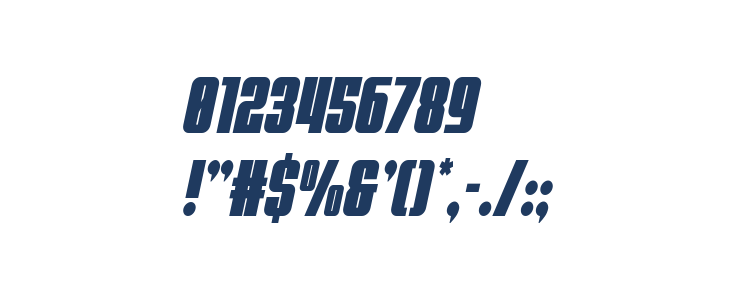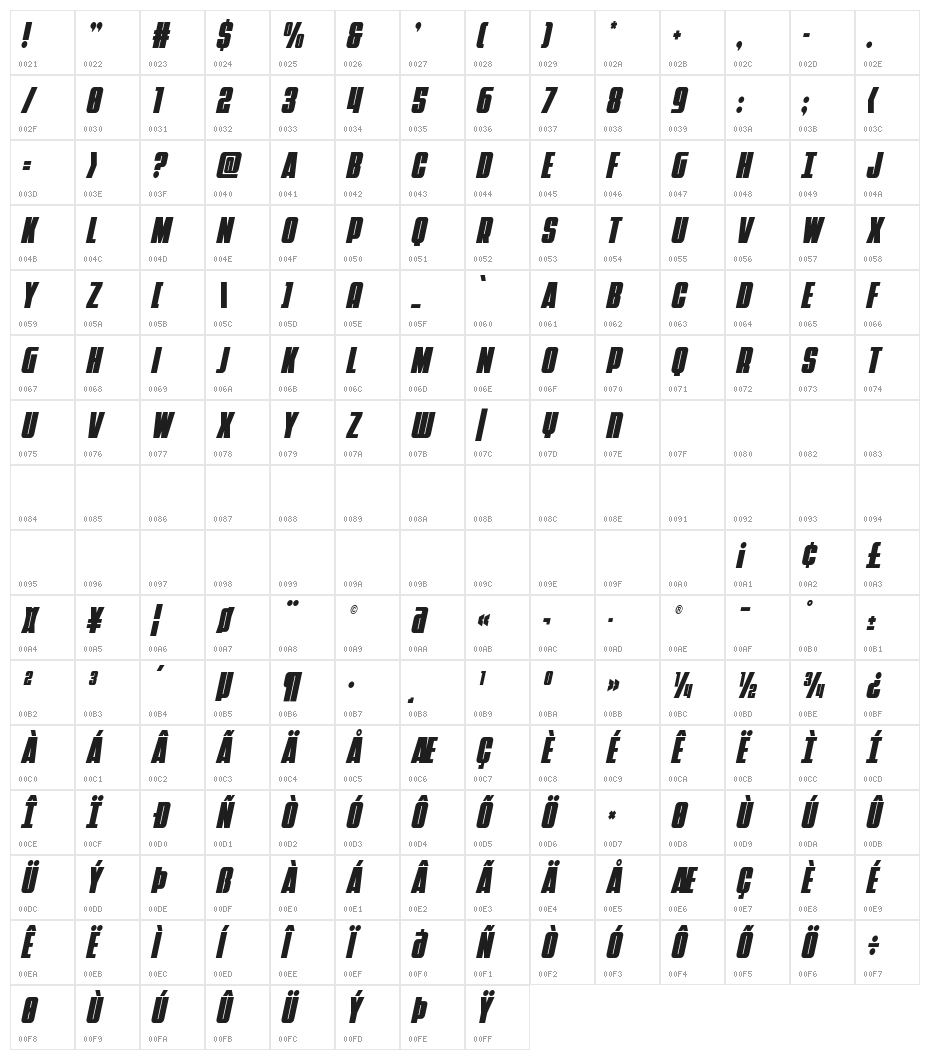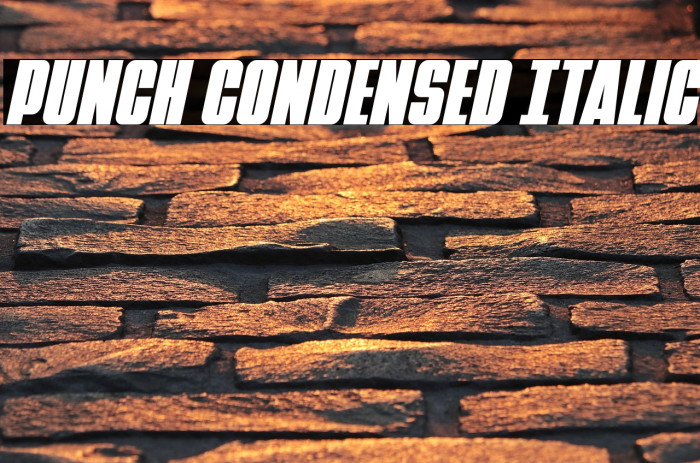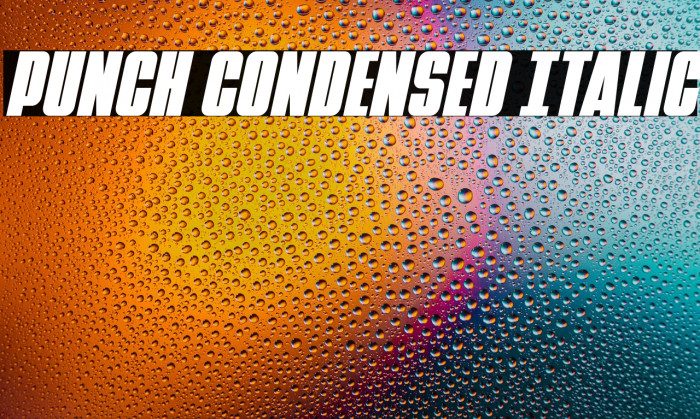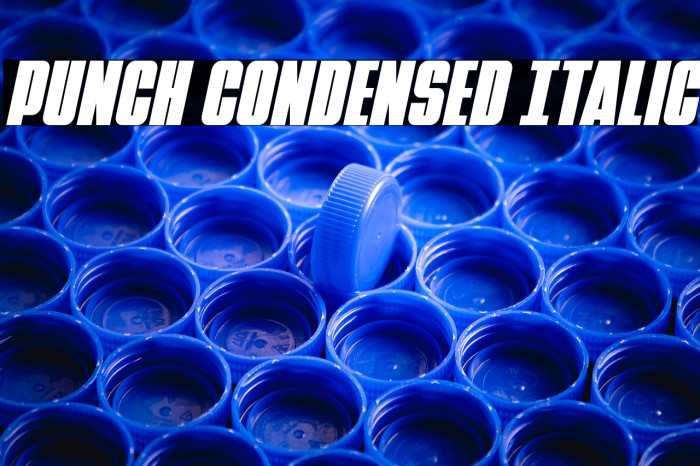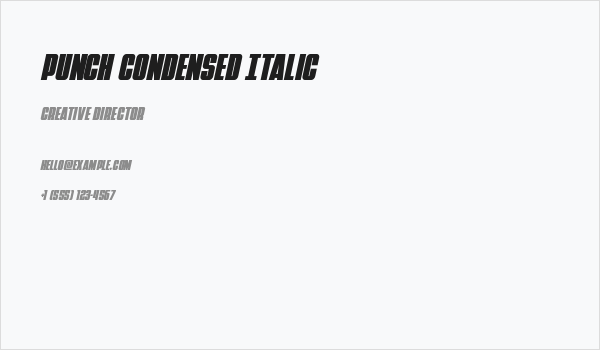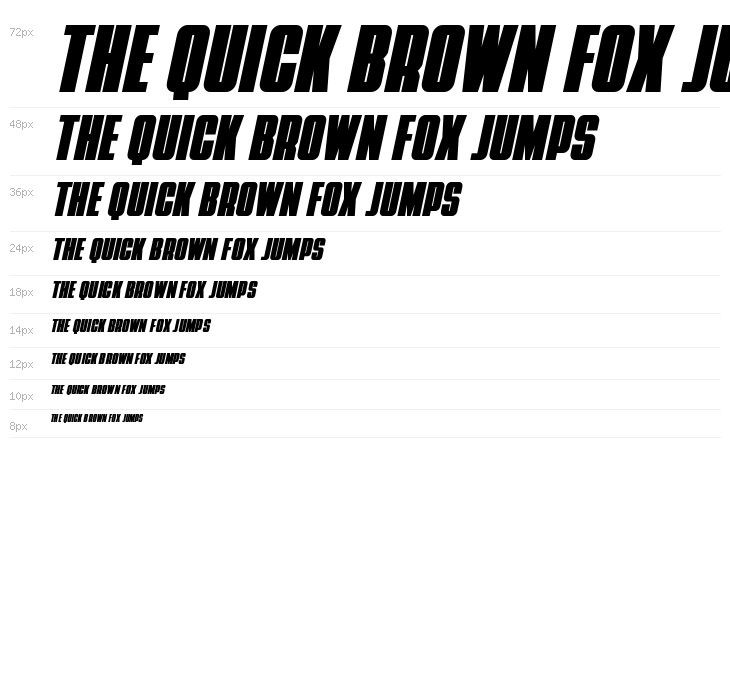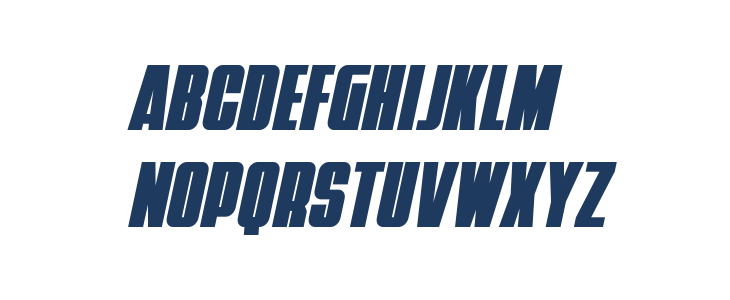
Punch Condensed Italic Font
Punch Condensed Italic Description
This font features a bold and dynamic style with a condensed and italicized form. The characters are tightly spaced, creating a sense of urgency and impact. The strokes are thick and consistent, providing a strong visual presence. The italic slant adds a sense of motion and modernity, making it suitable for attention-grabbing headlines. The uppercase letters are prominent, while the lowercase letters maintain the same boldness and condensed form. The numerals are equally bold, ensuring consistency across all characters. Special characters are included, maintaining the same stylistic features.